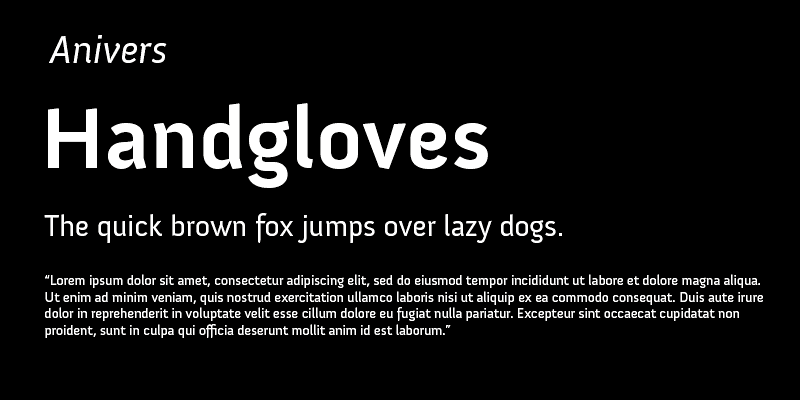
Anivers was designed to celebrate the first anniversary of Smashing Magazine. Anivers is playful and elegant but also very robust. It comes in regular, italic, bold and small caps and offers support for CE languages and even esperanto.
exljbris Font Foundry
Jos Buivenga lives and works in Arnhem. He started designing type in 1994 and started his exljbris Font Foundry ten years later. He is most known for his Museo font family and also for the way he markets his typefaces.